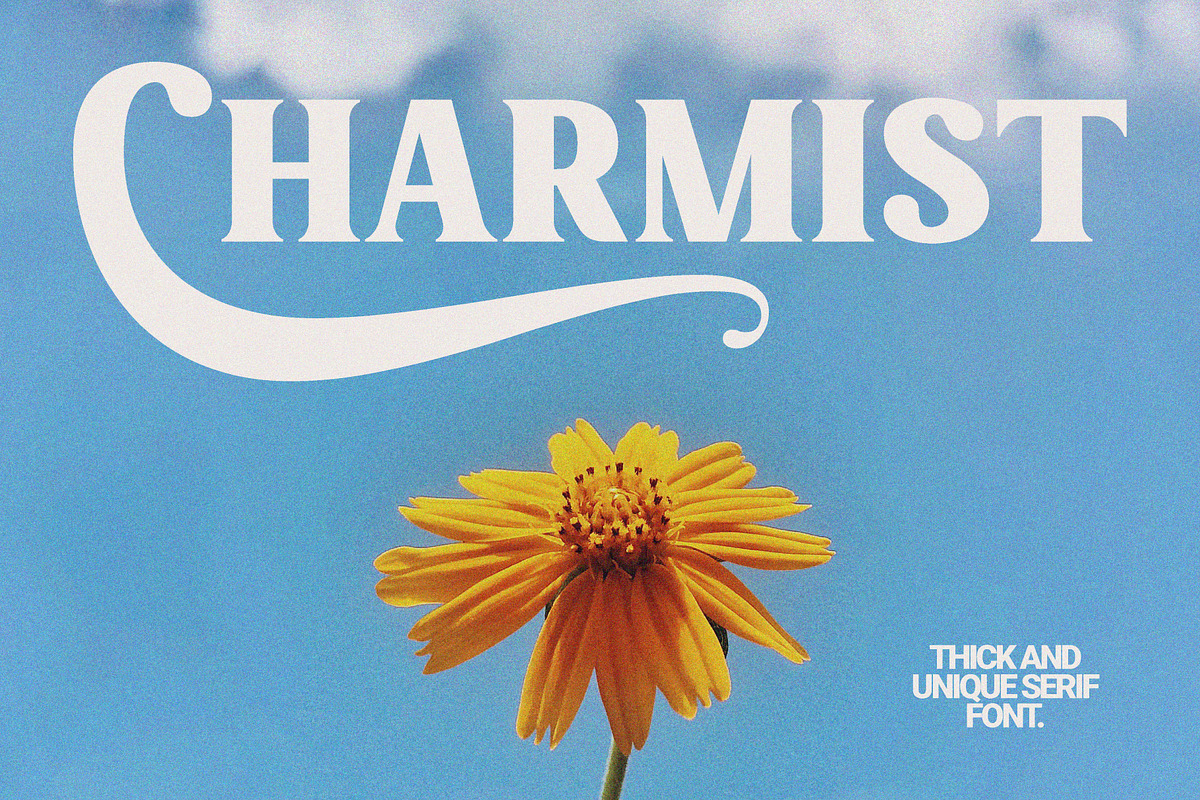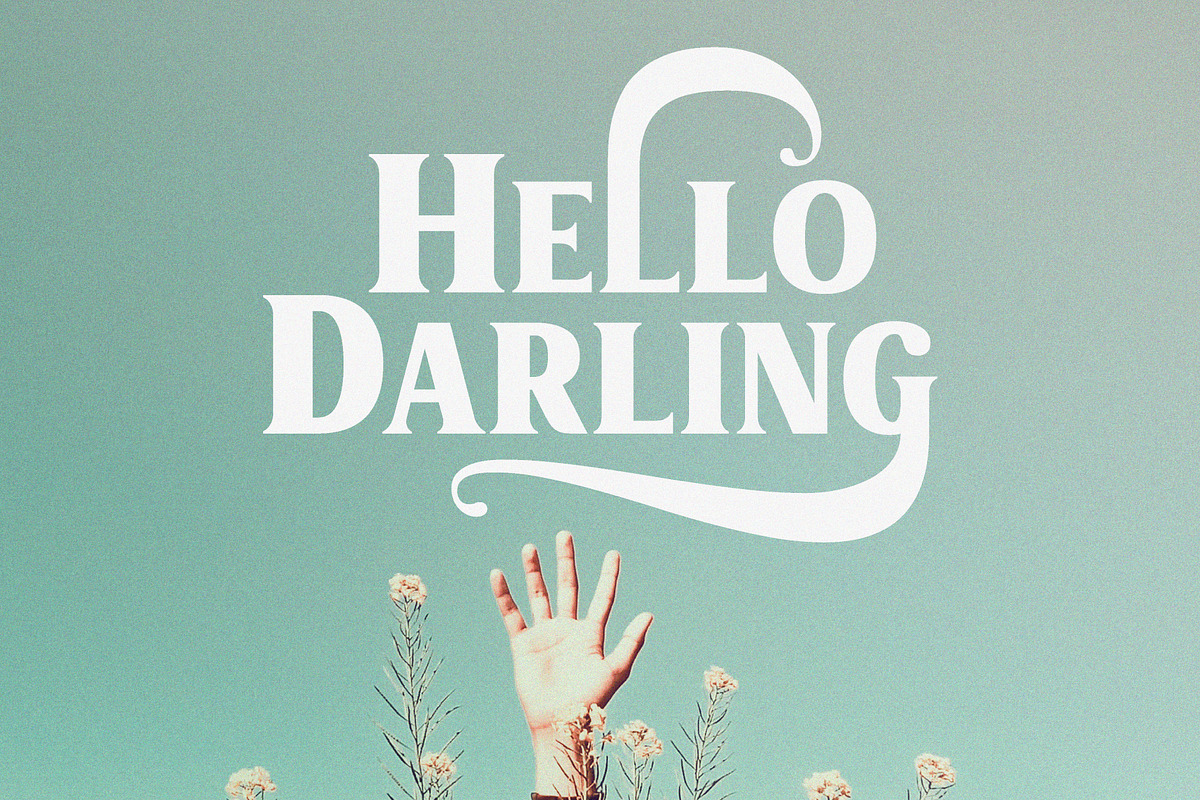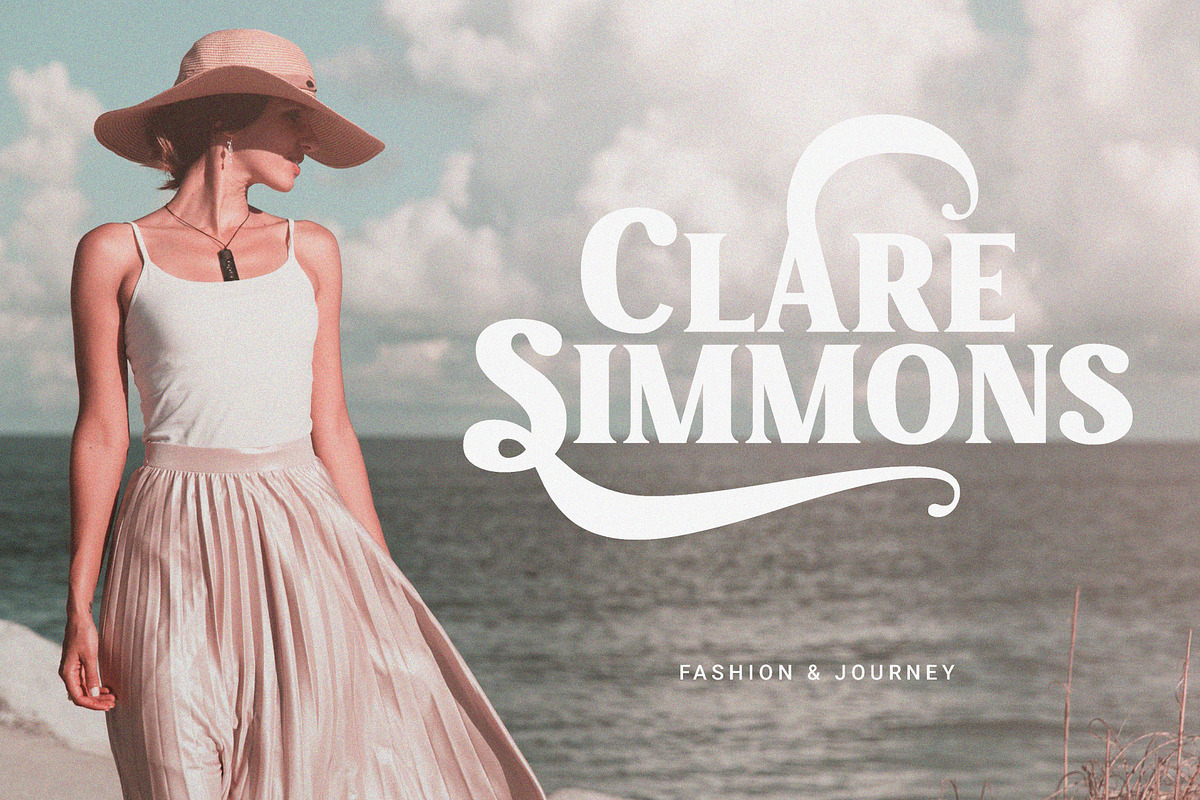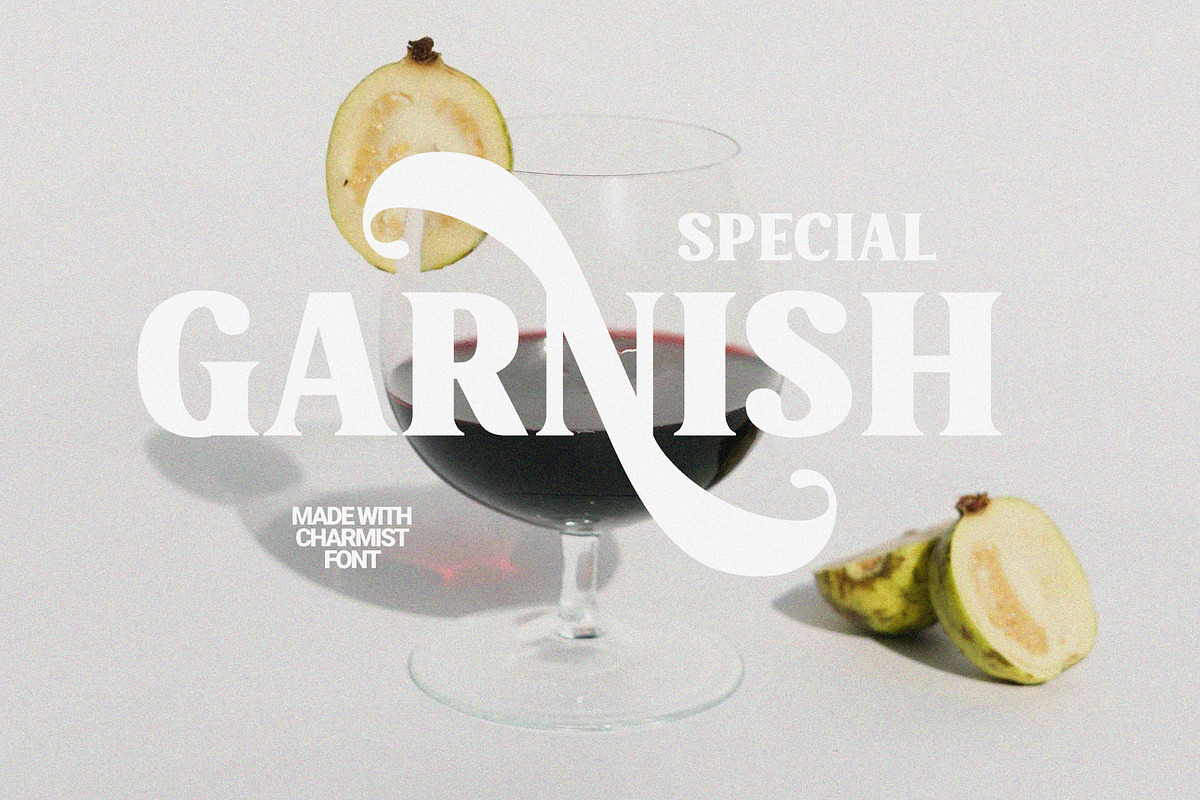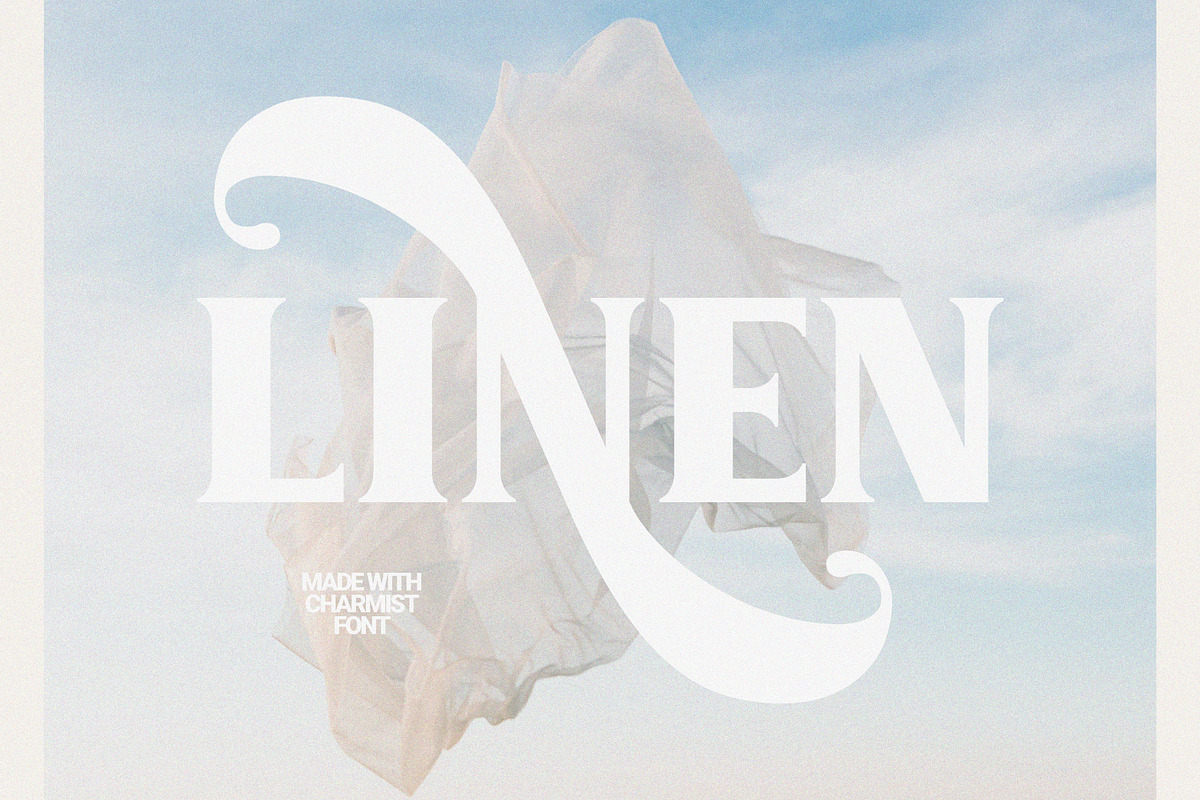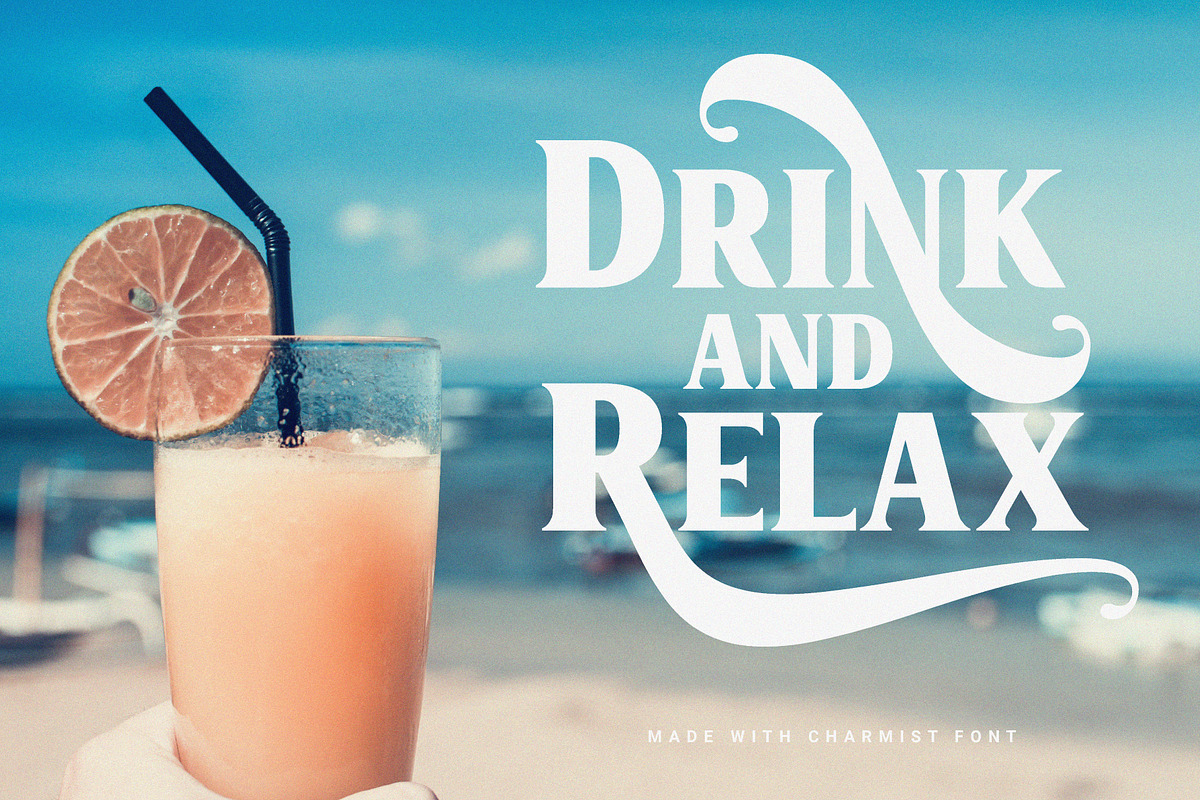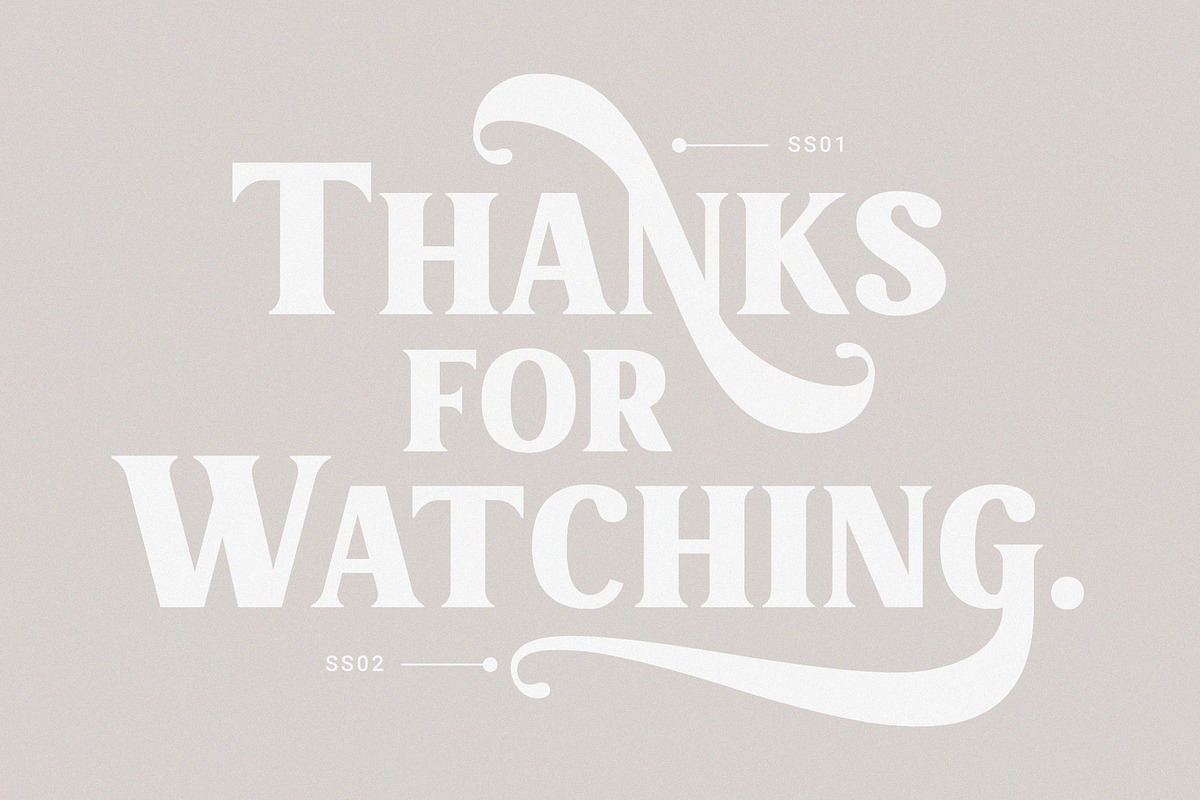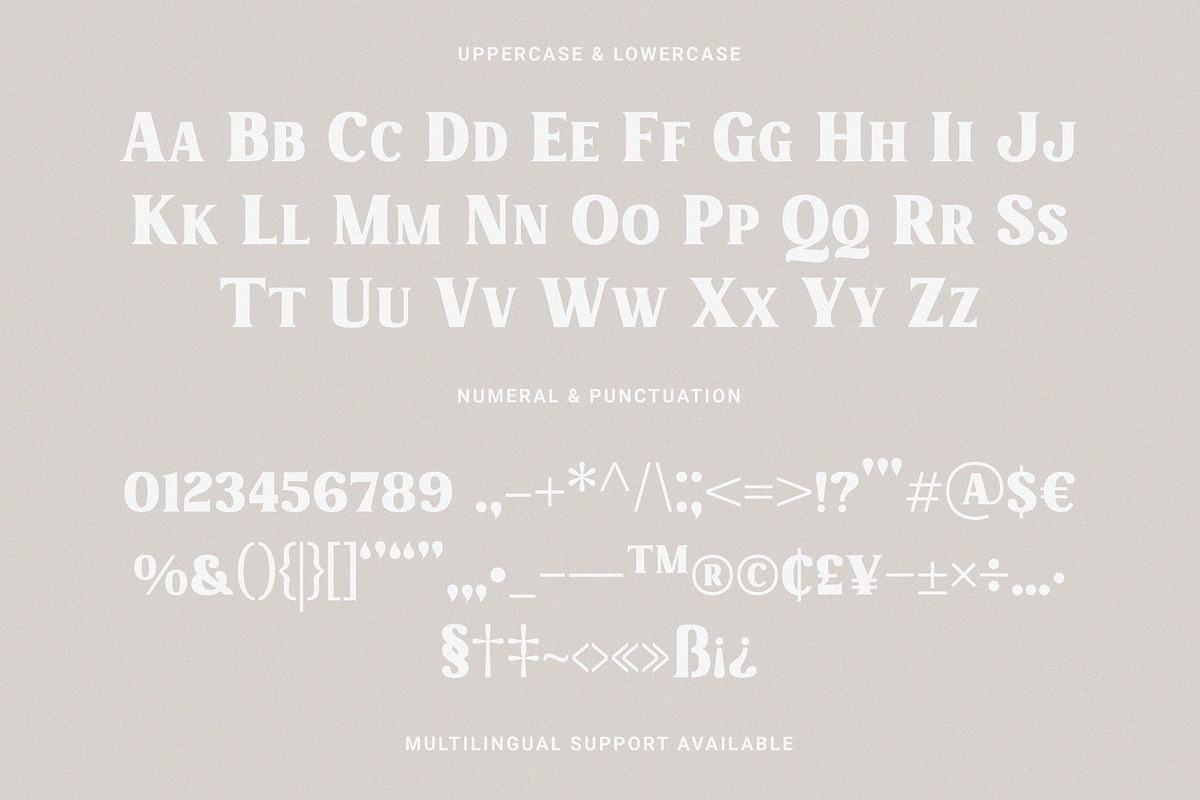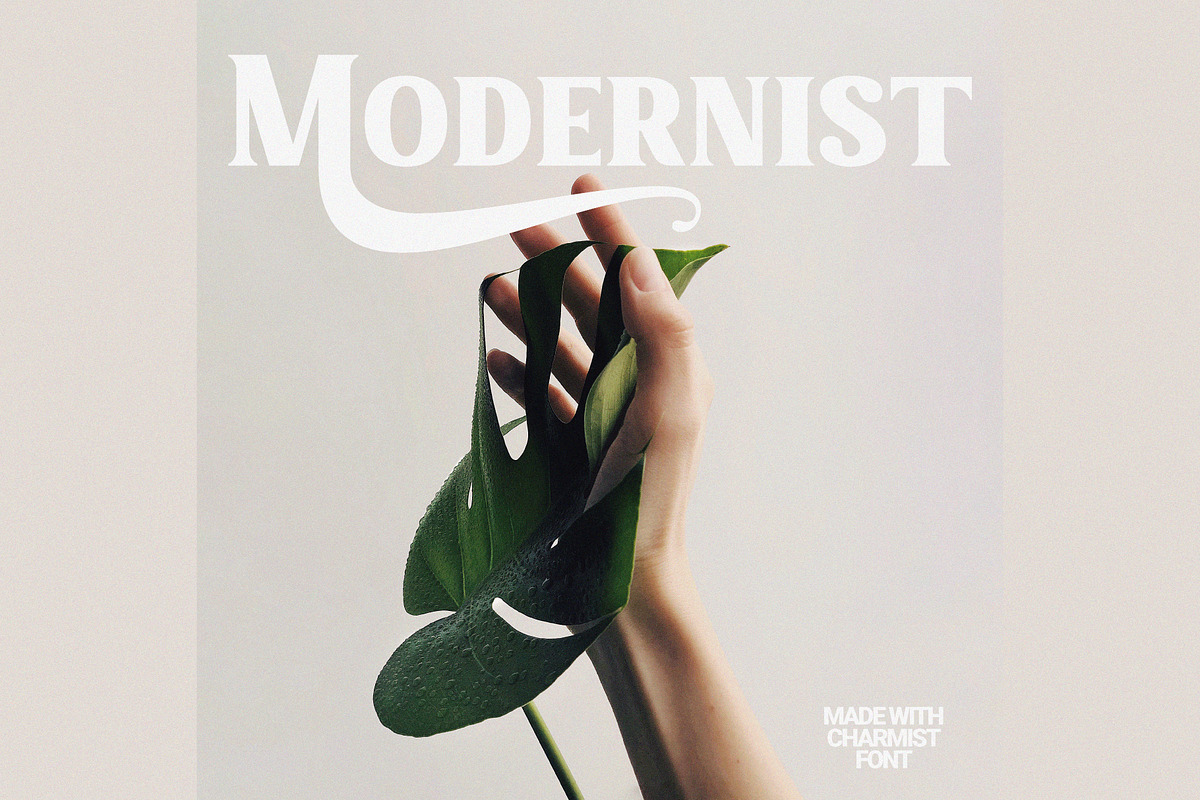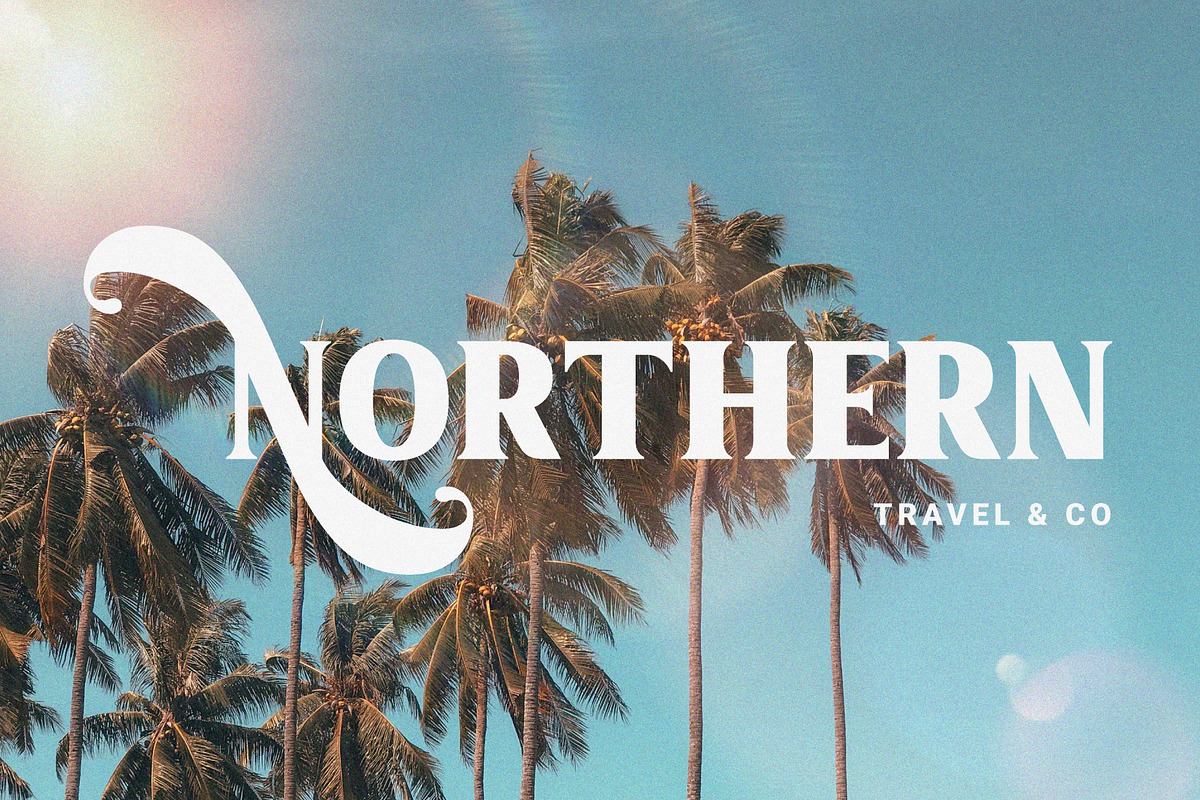
Charmist – Thick And Unique Serif
Charmist – Thick And Unique Serif Font by Prioritype Co.
Say hello to this new font. “Charmist” is a serif font with a modern and unique style with the difference that the capital letters are bolder but with the same shape (All Caps). There is a uniqueness in the alternative characters that you can play. Very impressive for branding designs, logos or creative posts. Get it now and start playing!
Features: Uppercase, Lowercase, Numeral, Punctuation, Multilingual, Alternates & PUA Encoded.